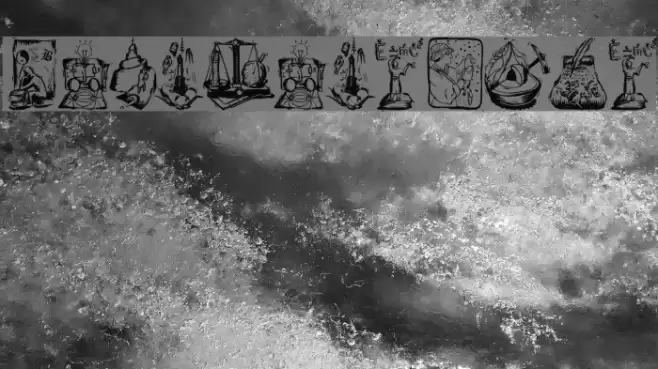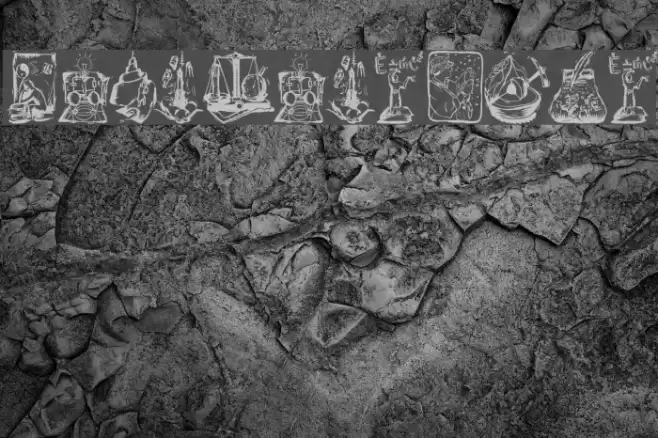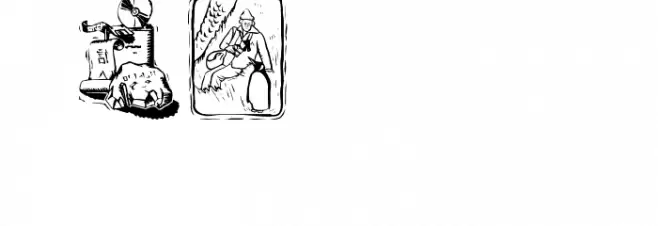
SciencesBats Font
SciencesBats Description
A highly detailed, hand-drawn decorative font where each character is represented by a unique scientific or academic illustration, featuring intricate linework and sketch-like qualities. The glyphs are pictorial rather than traditional letterforms, making the set visually rich and thematic.
Hand-drawn, science-themed pictorial decorative font from Uncategorized fonts.
- Proposed Projects: Educational posters, science fair materials, themed invitations, children's science books, museum signage.
- Overall Style: Decorative, Sketch, Thematic
- Use Case: Logos, Headlines, Posters, Themed graphics